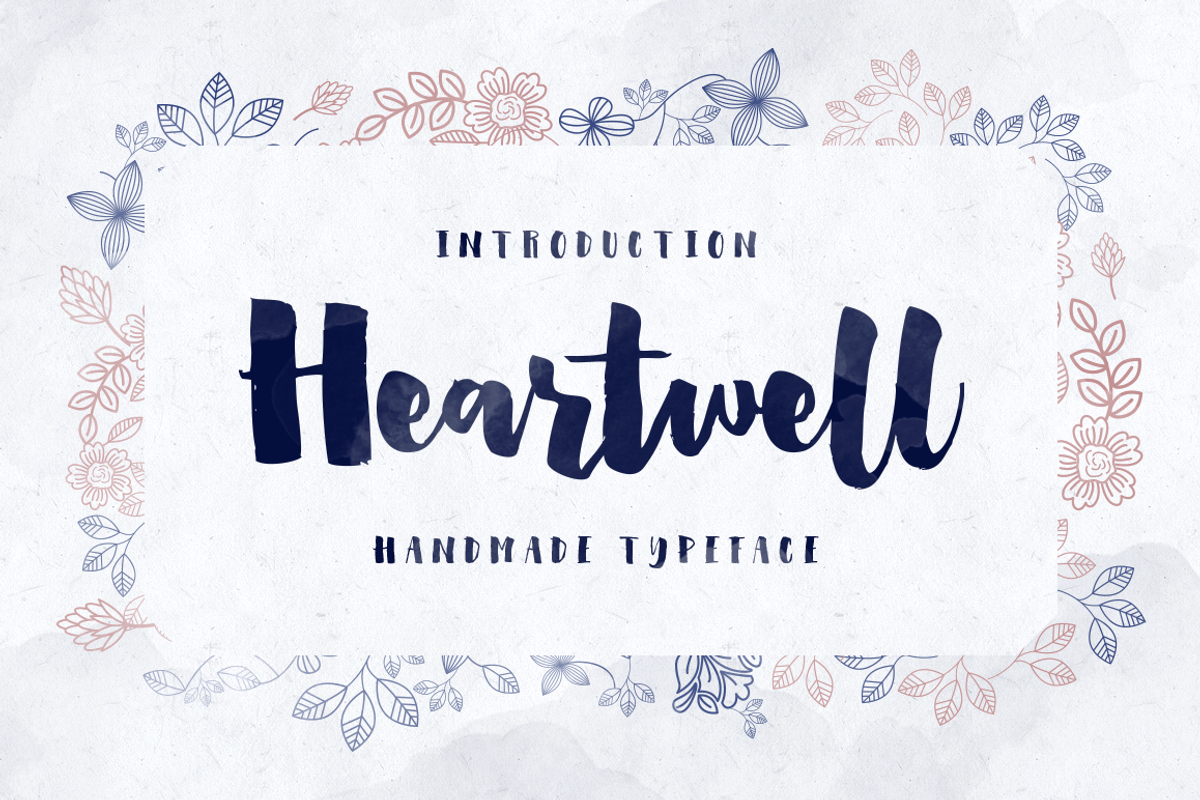
Heartwell Font Free Download is a beautiful and elegant script typeface that exudes a sense of sophistication and warmth. With its smooth curves, flowing strokes, and graceful design, this font is perfect for wedding invitations, branding, logos, social media posts, and any project that requires a refined, personal touch.
Heartwell Font Free Download blends elegance with readability, making it a versatile choice for both large display text and smaller accents. Whether you're designing for a high-end brand, a special event, or creating a romantic atmosphere, this font adds a stylish, handwritten feel.